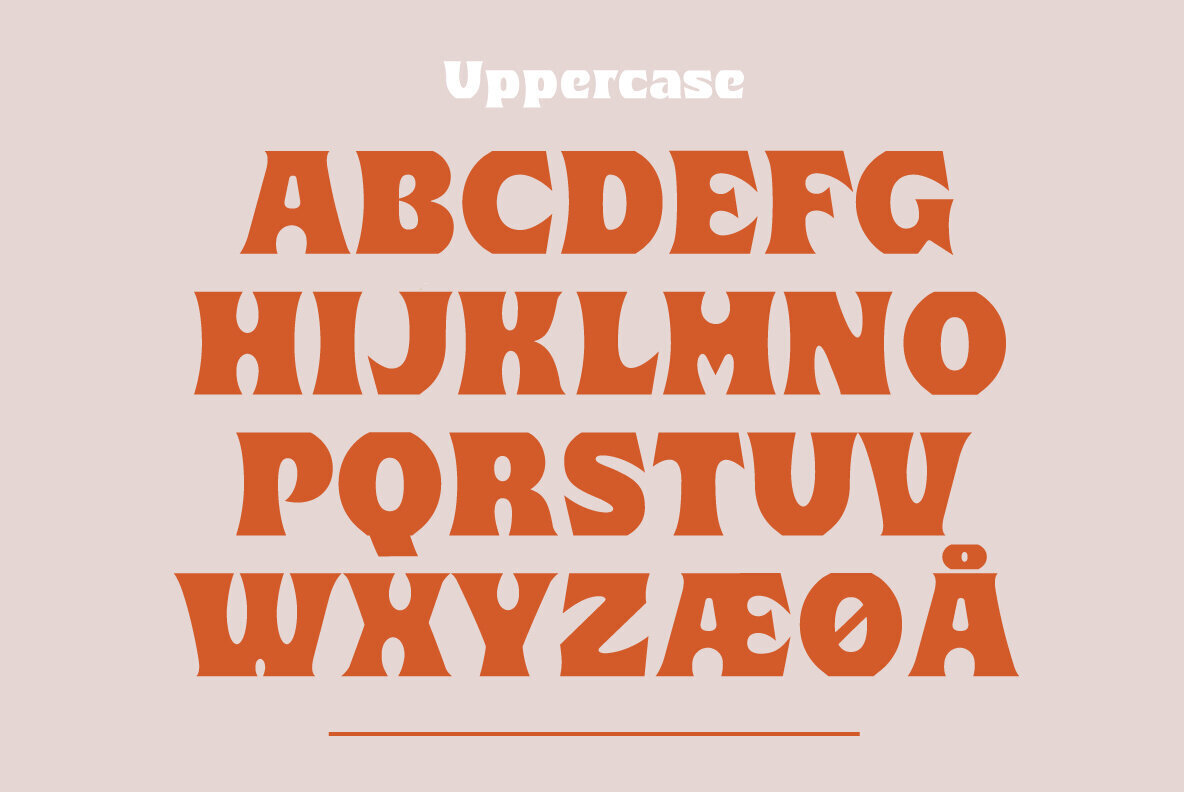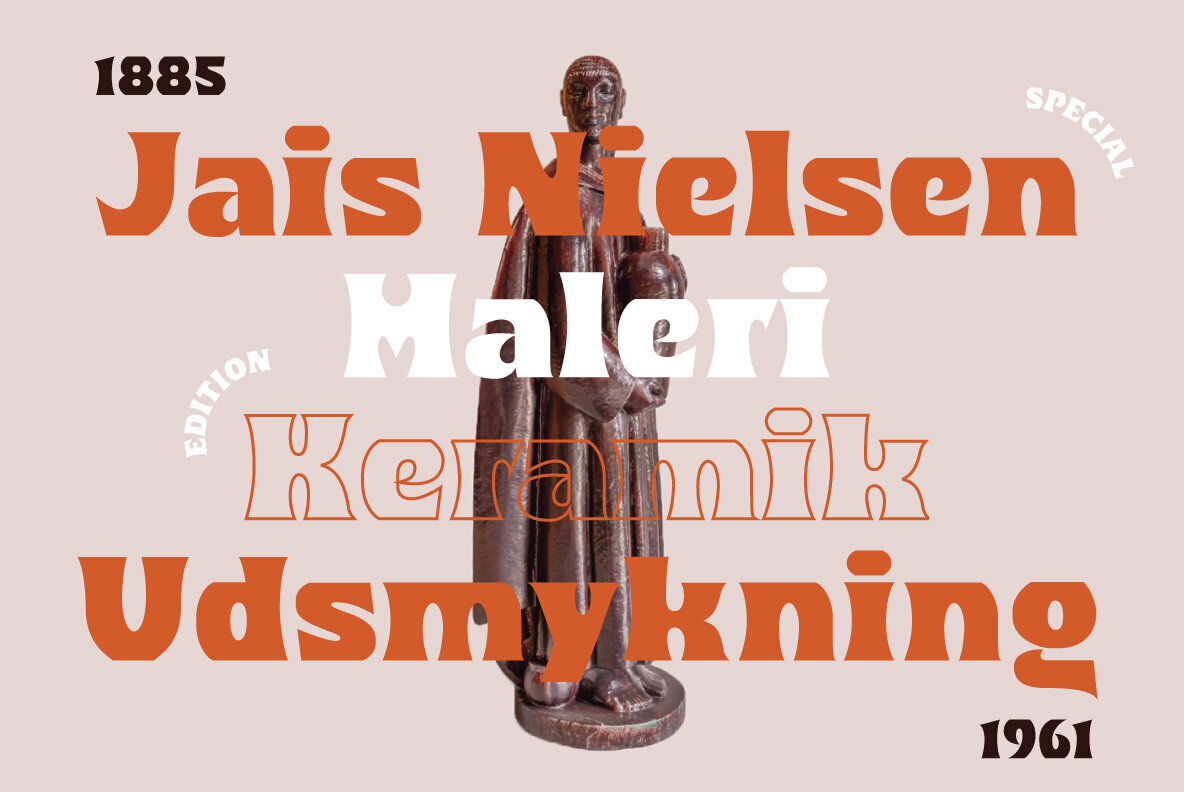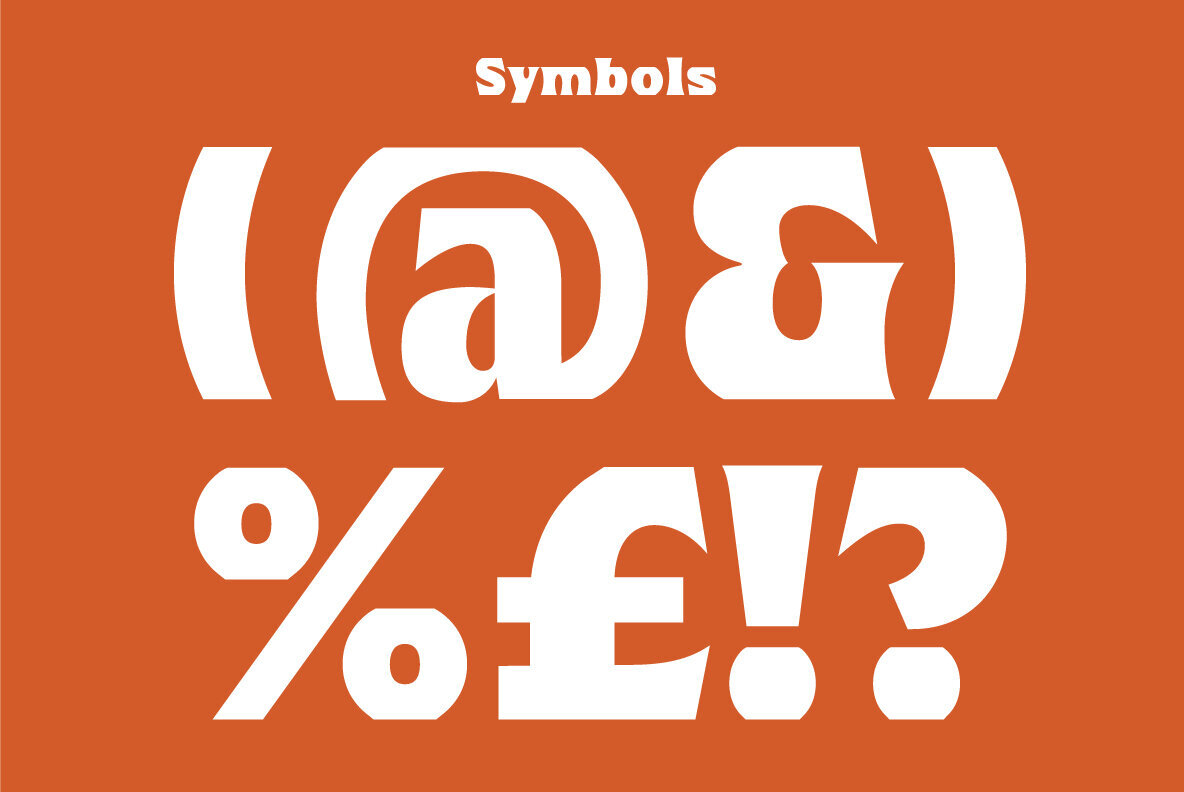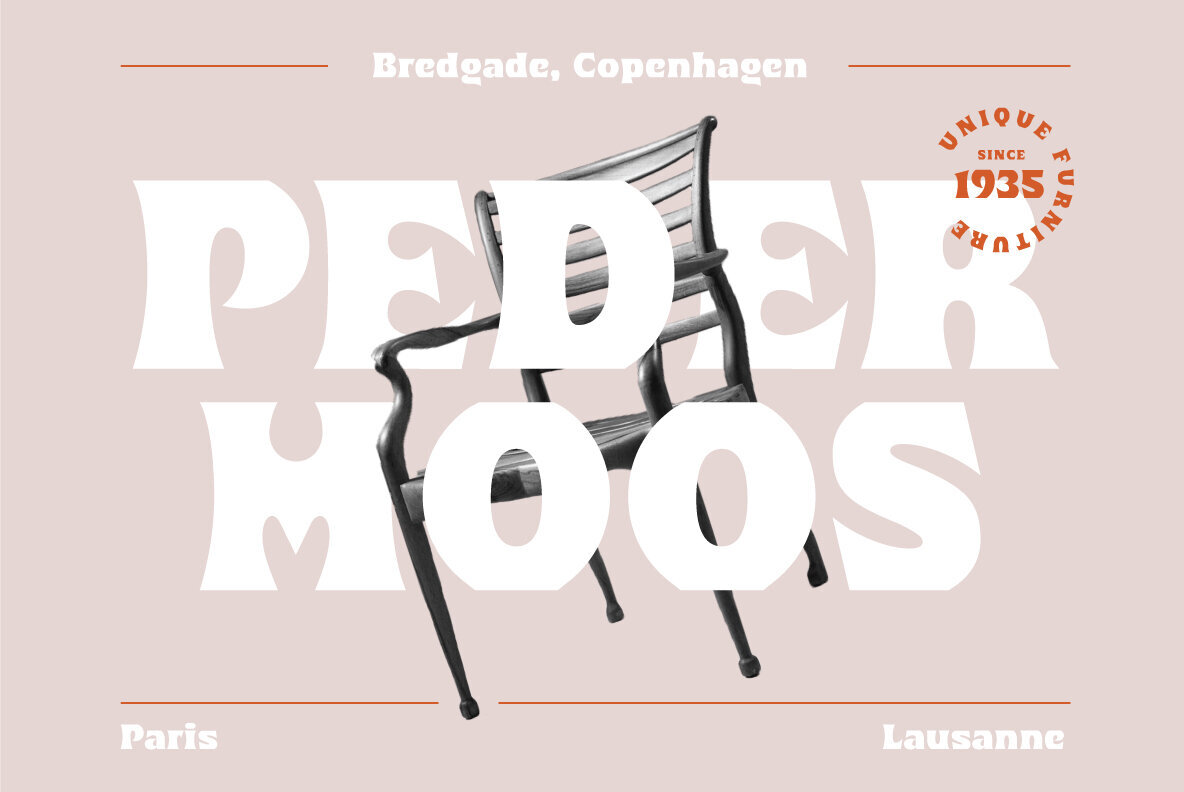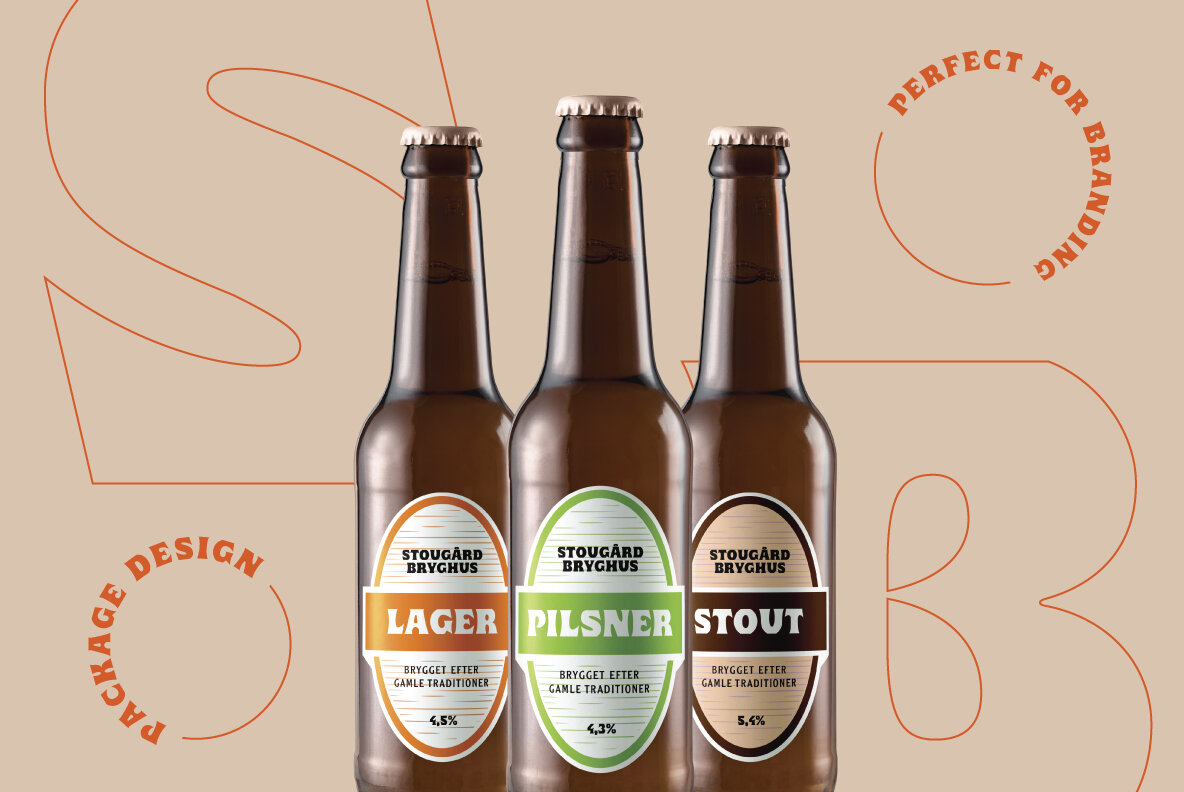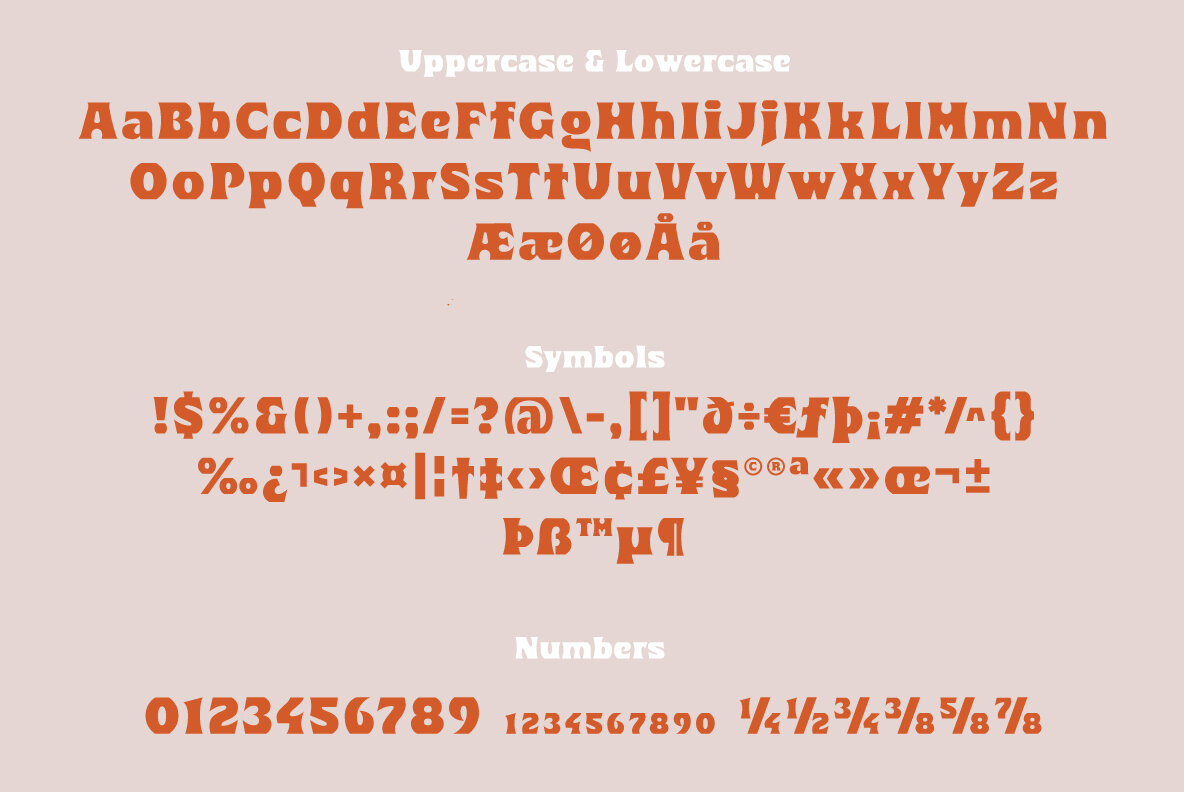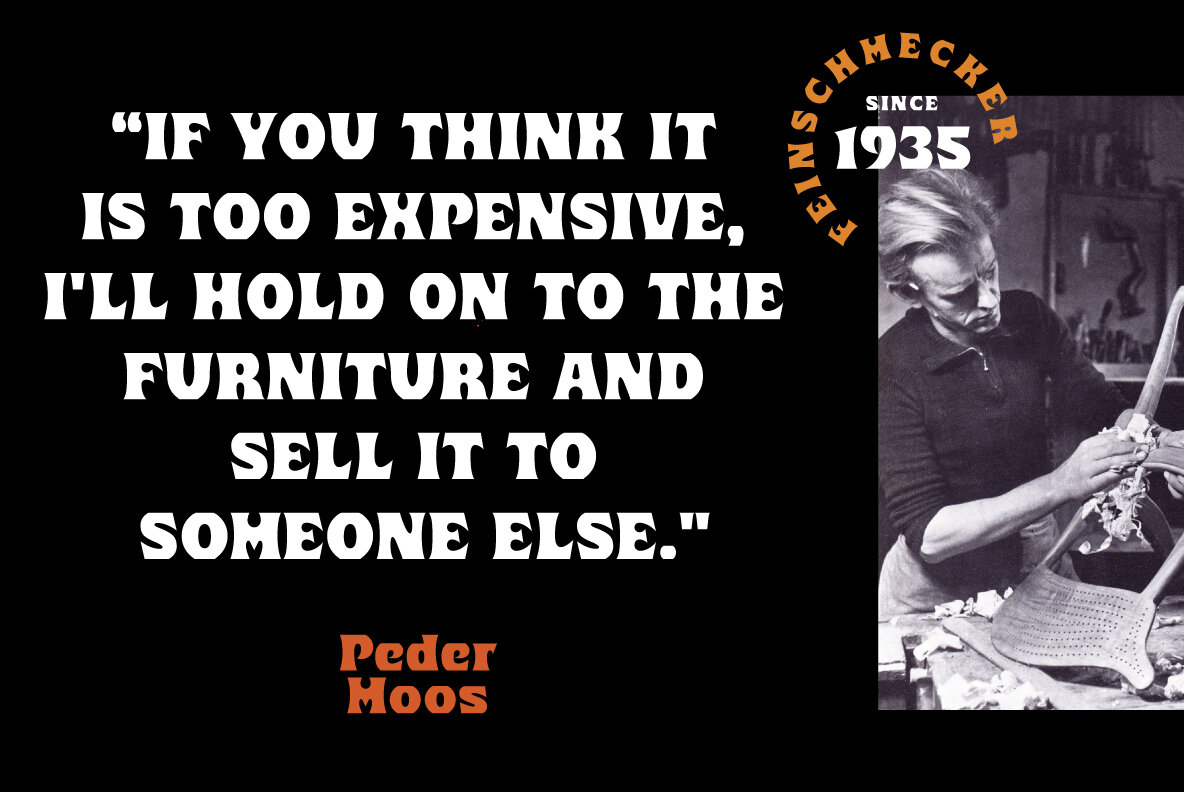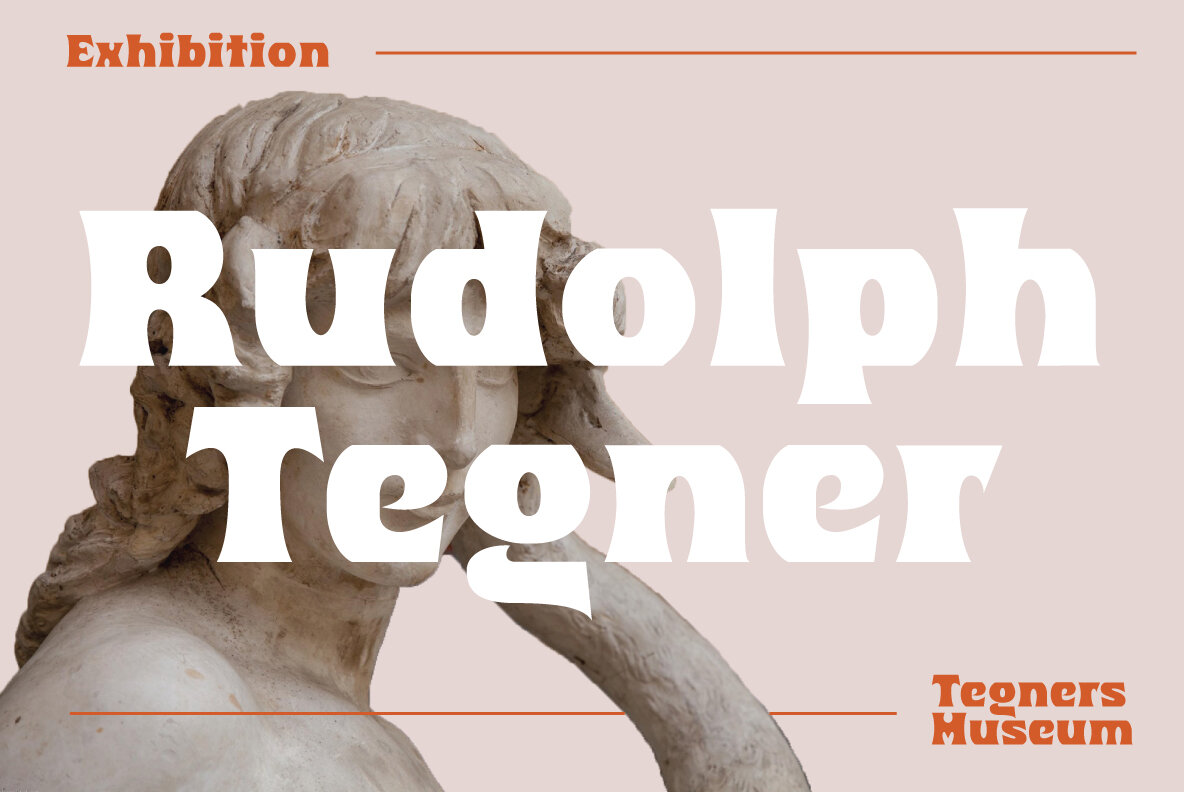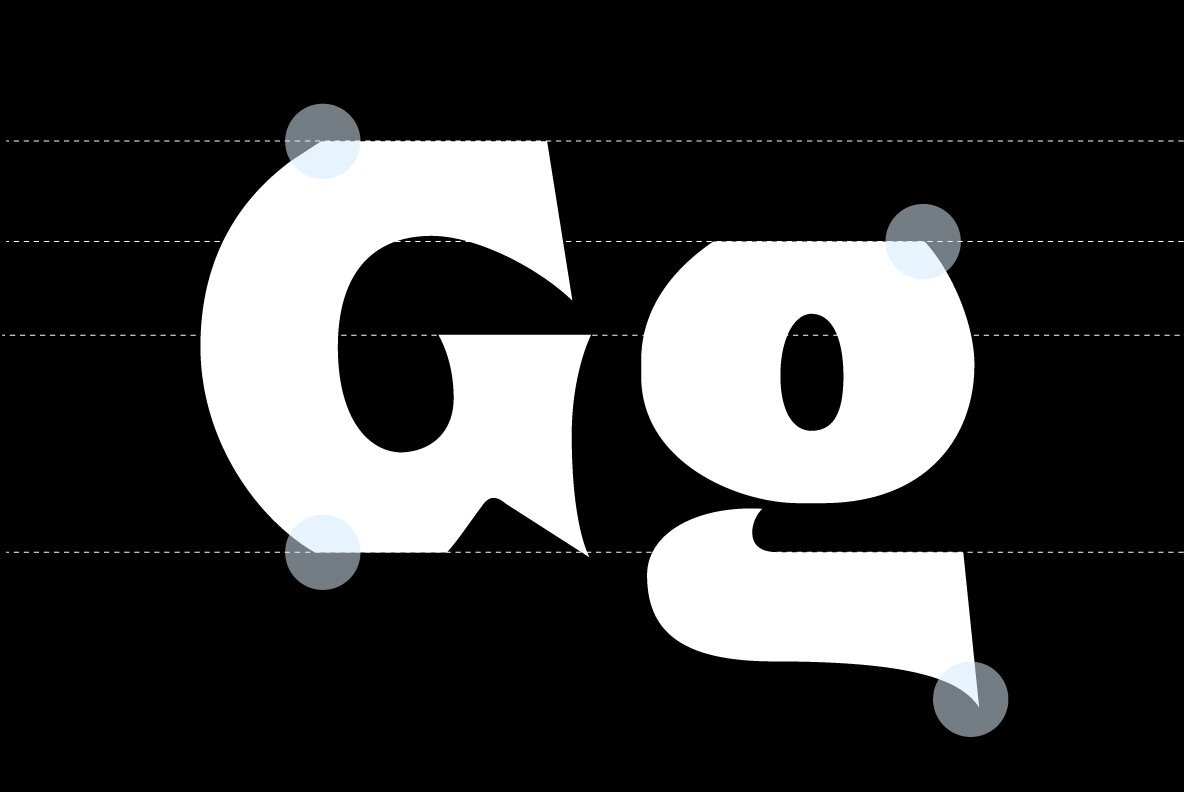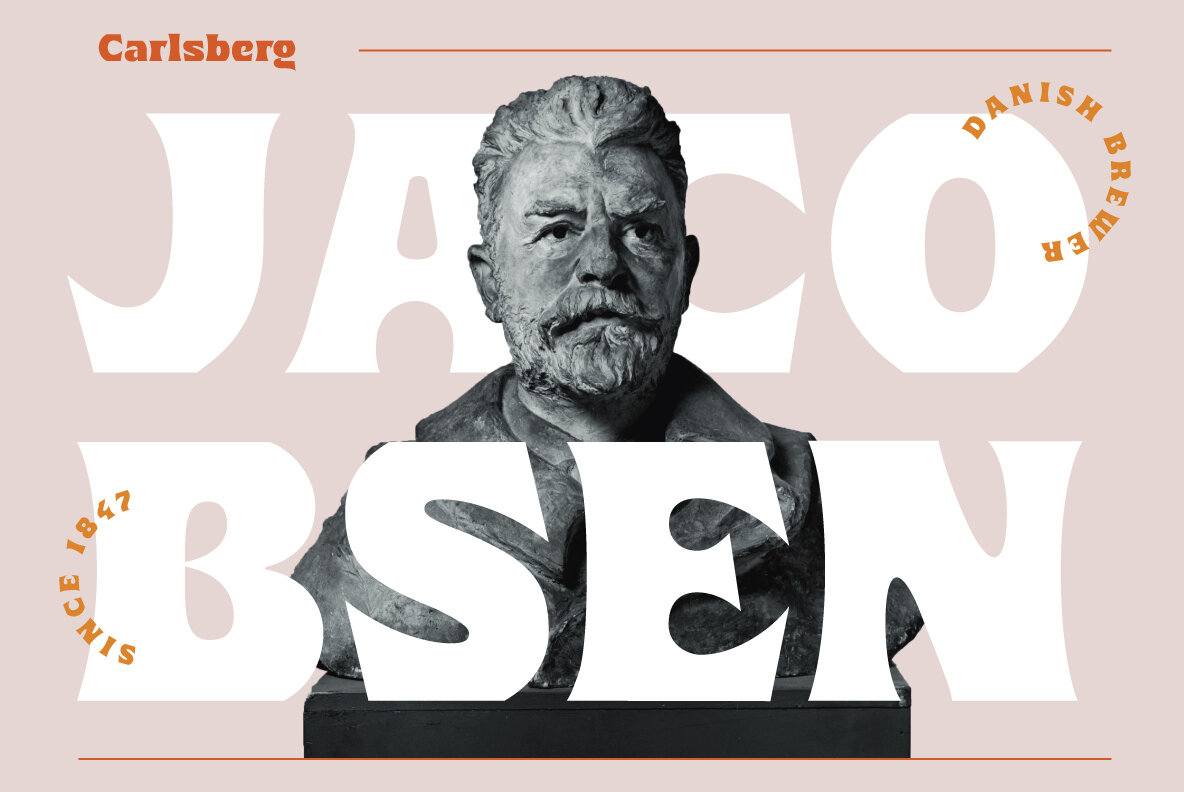
Lauge Font
Lauge Black
Lauge was originally created as a corporate typeface for ticket package-design. The inspiration from the old danish type and old museum posters from the 30s.
This font is great for logo, children books, poster, package design, cinema posters, branding, and many many other cool design projects. Enjoy!